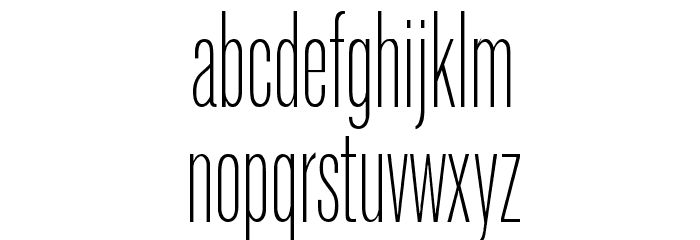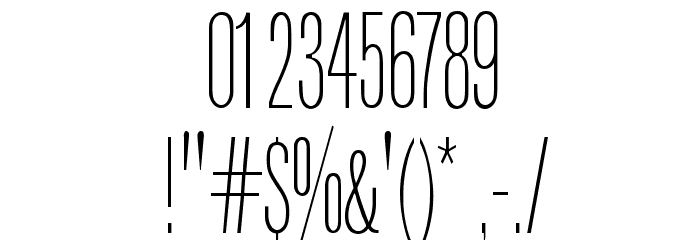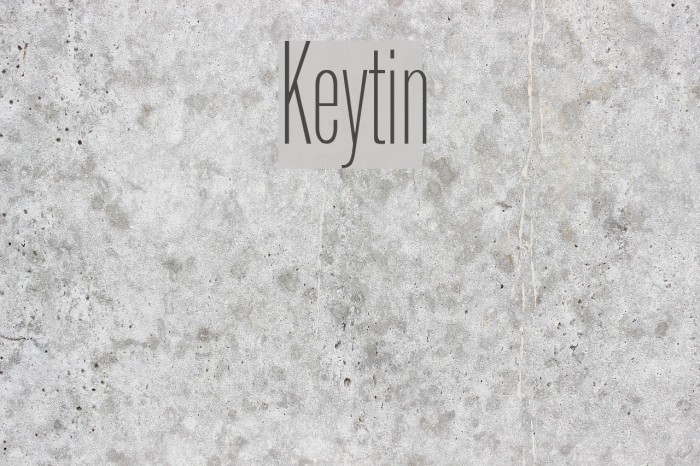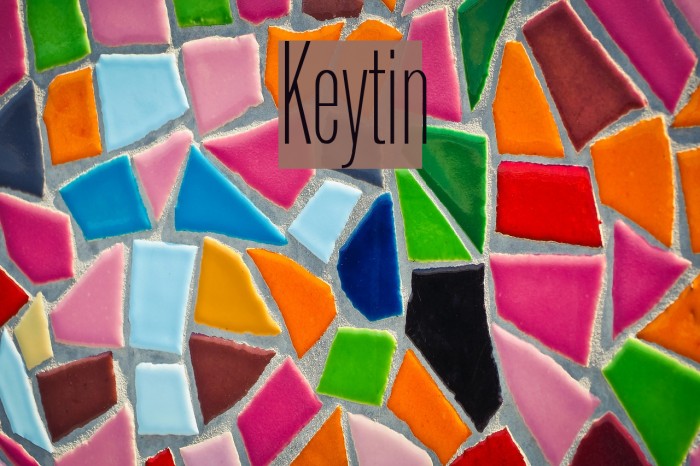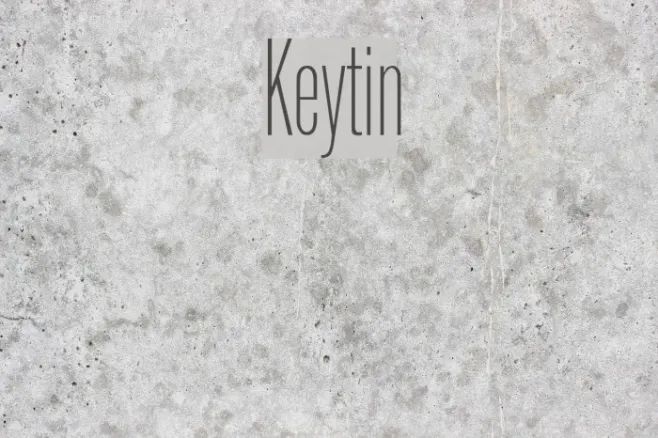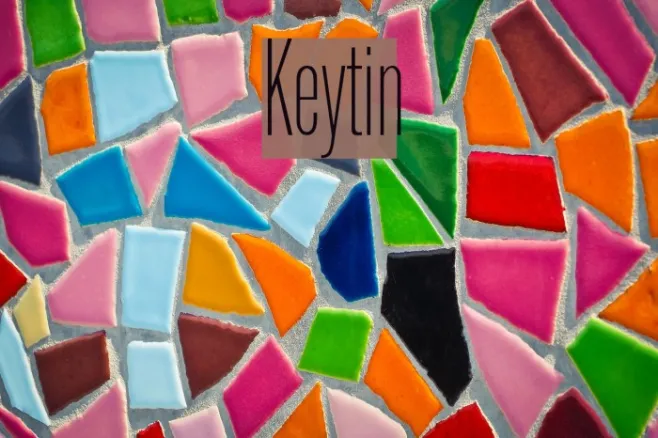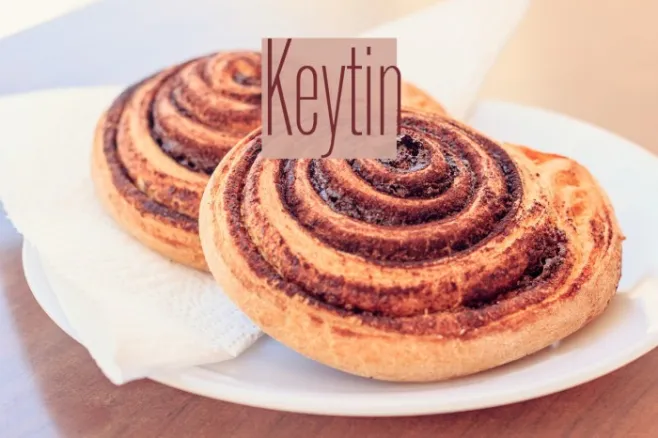
Keytin Font
This font is a modern sans-serif typeface characterized by its tall, narrow letterforms and clean lines. The uppercase and lowercase letters maintain a consistent height, contributing to a uniform appearance. The numerals and special characters are designed with the same sleek and elongated style, ensuring a cohesive look across all text elements. The font's minimalistic design makes it versatile for various applications, offering a contemporary feel without unnecessary embellishments. Its simplicity and elegance make it suitable for both digital and print media.
A modern, tall, and narrow sans-serif typeface with clean lines.
- Proposed Projects: Ideal for branding, editorial design, advertising, and web design projects.
- Use Case: Headlines, Logos, Editorial Design